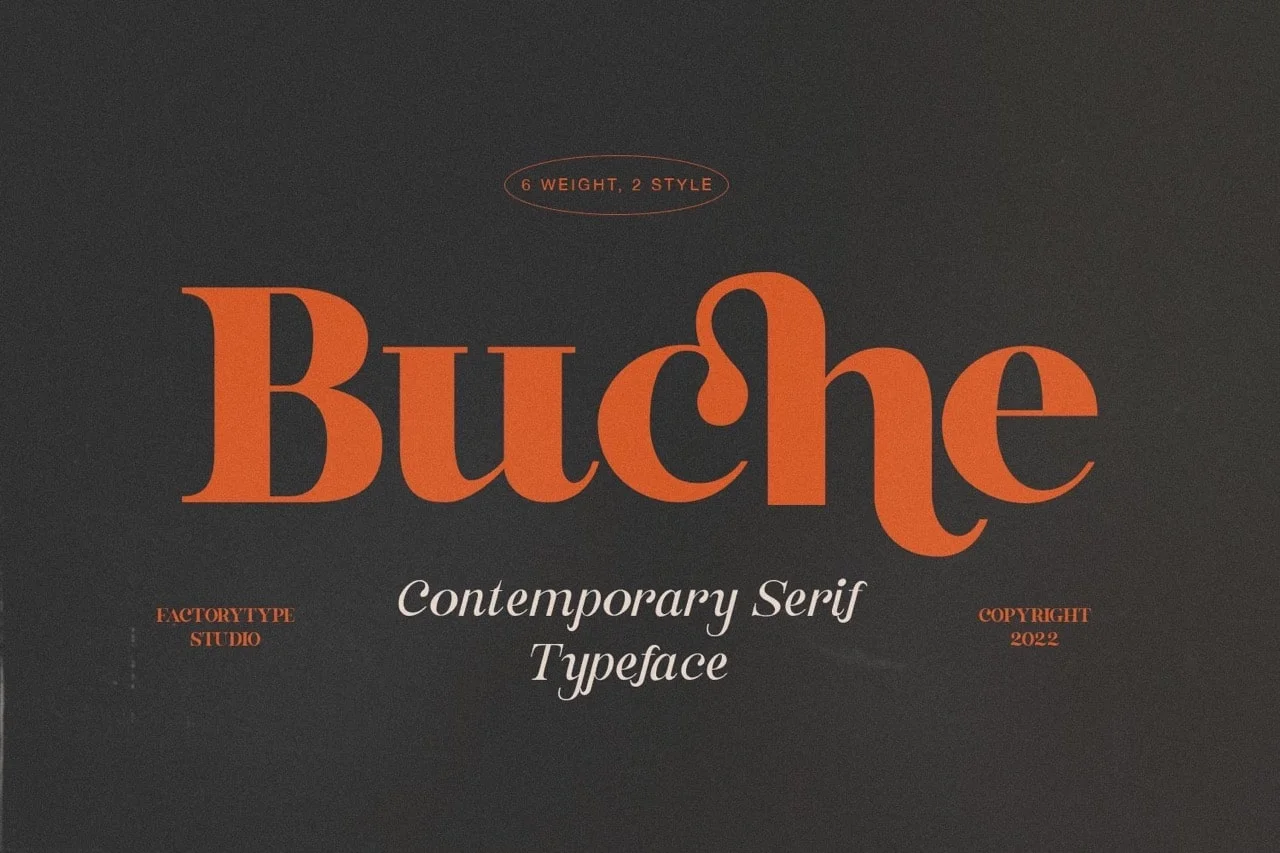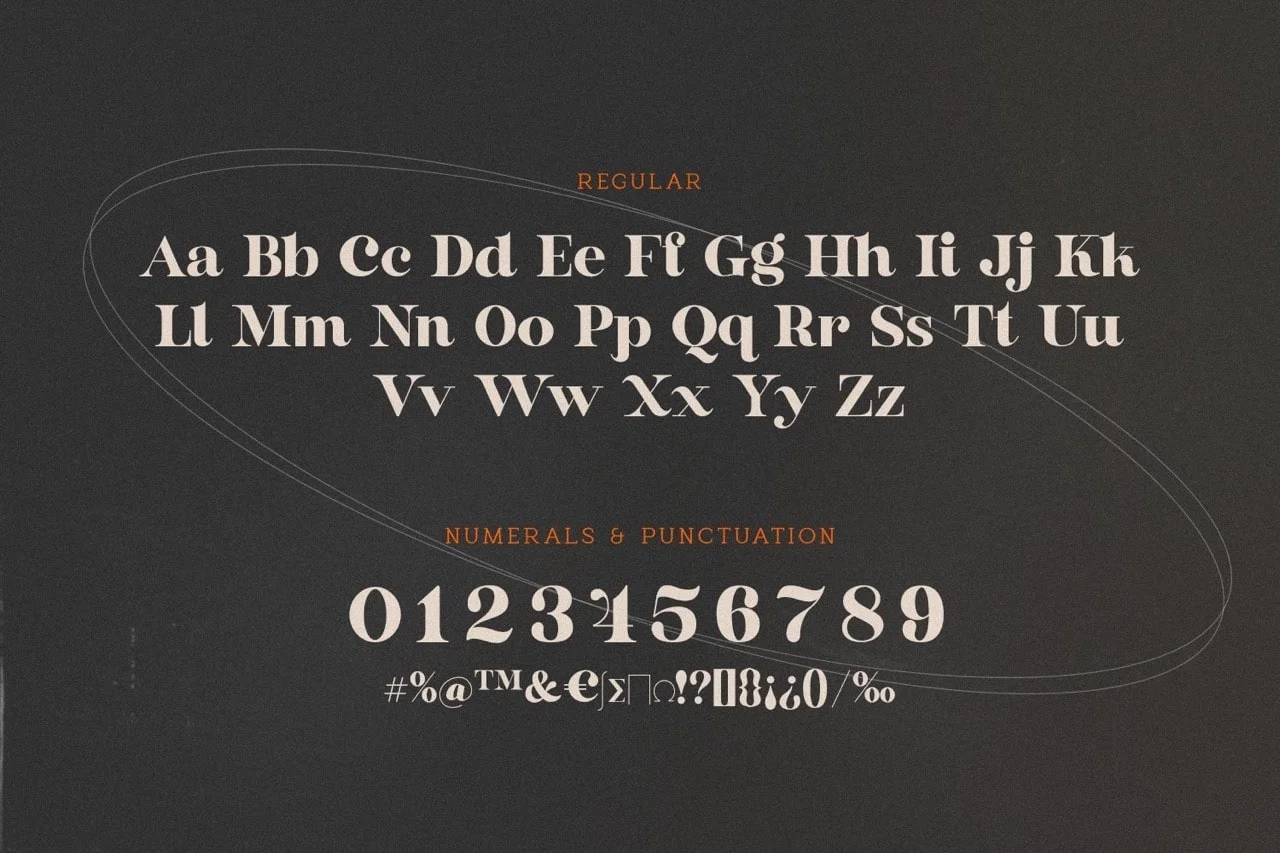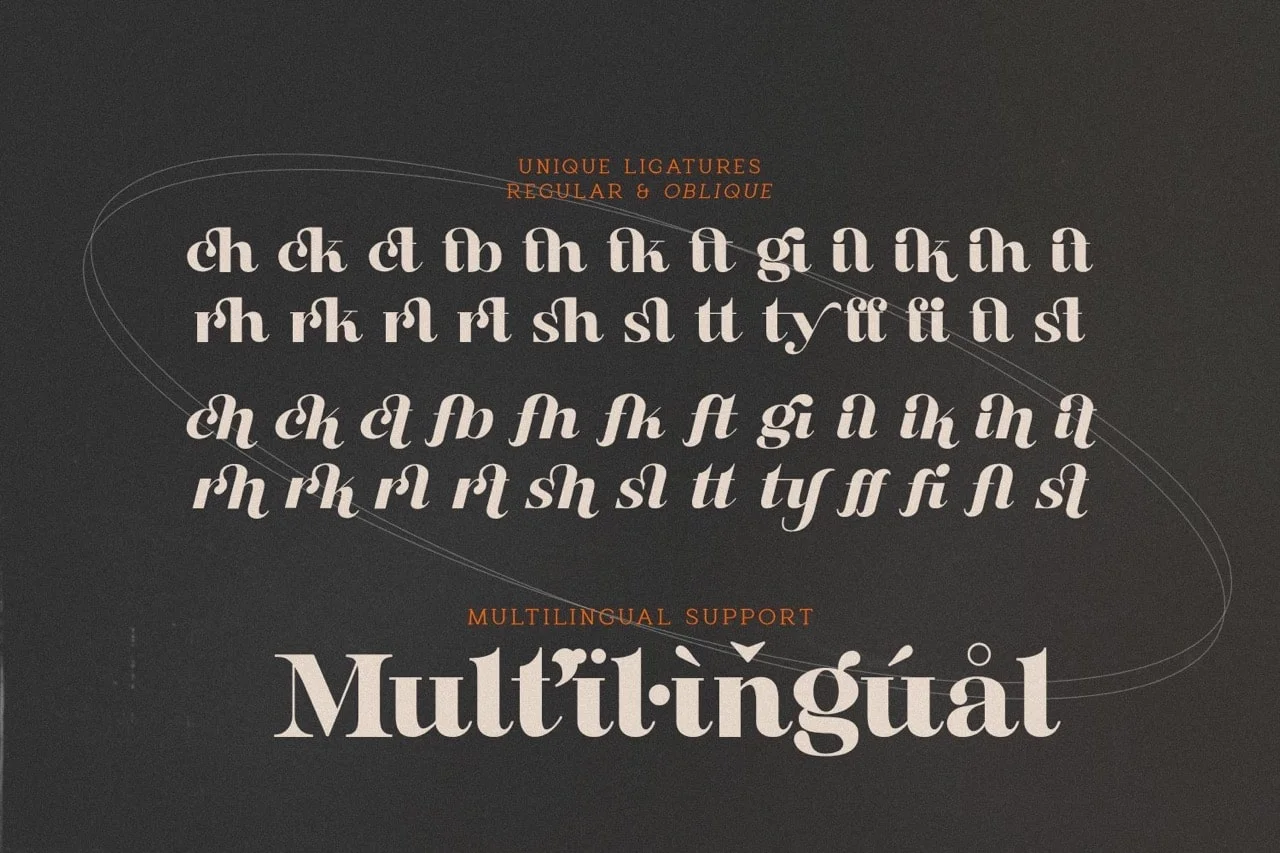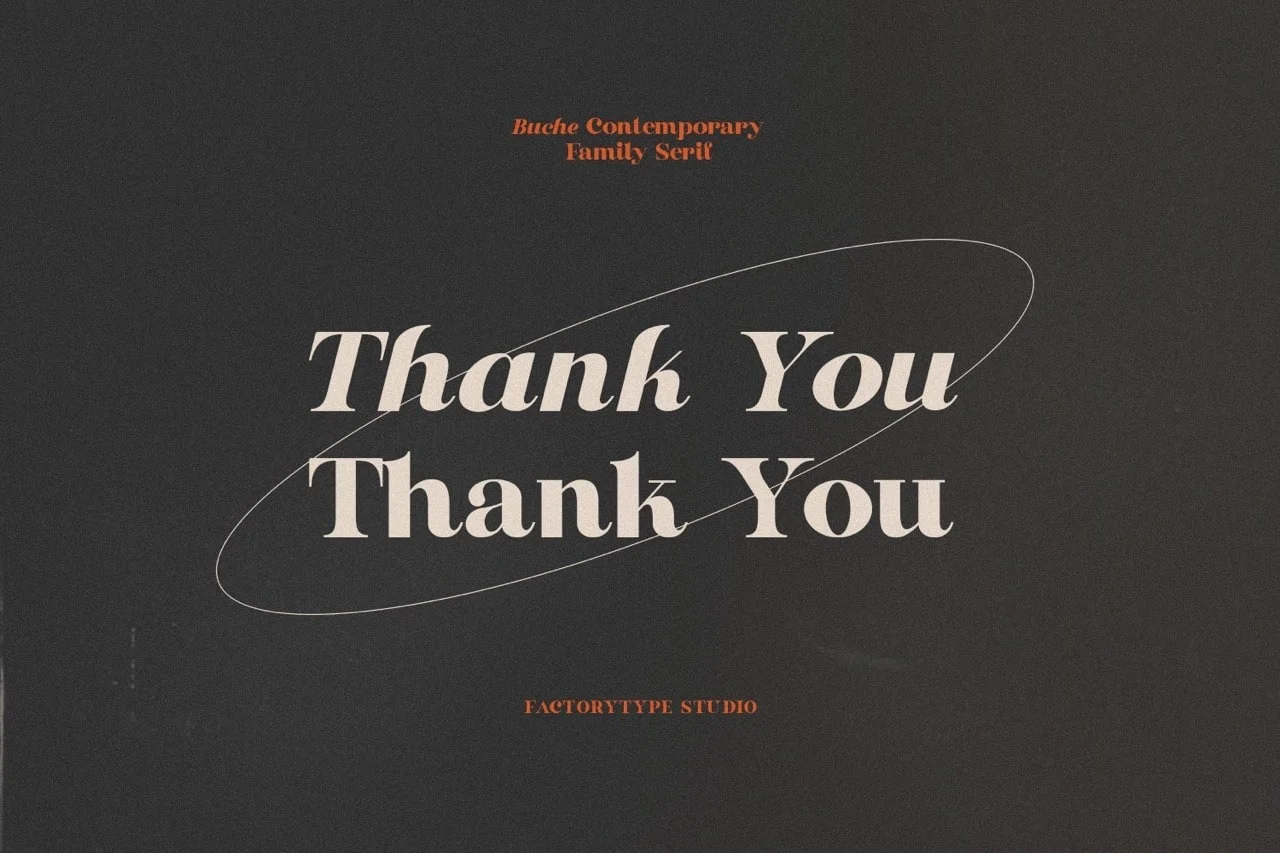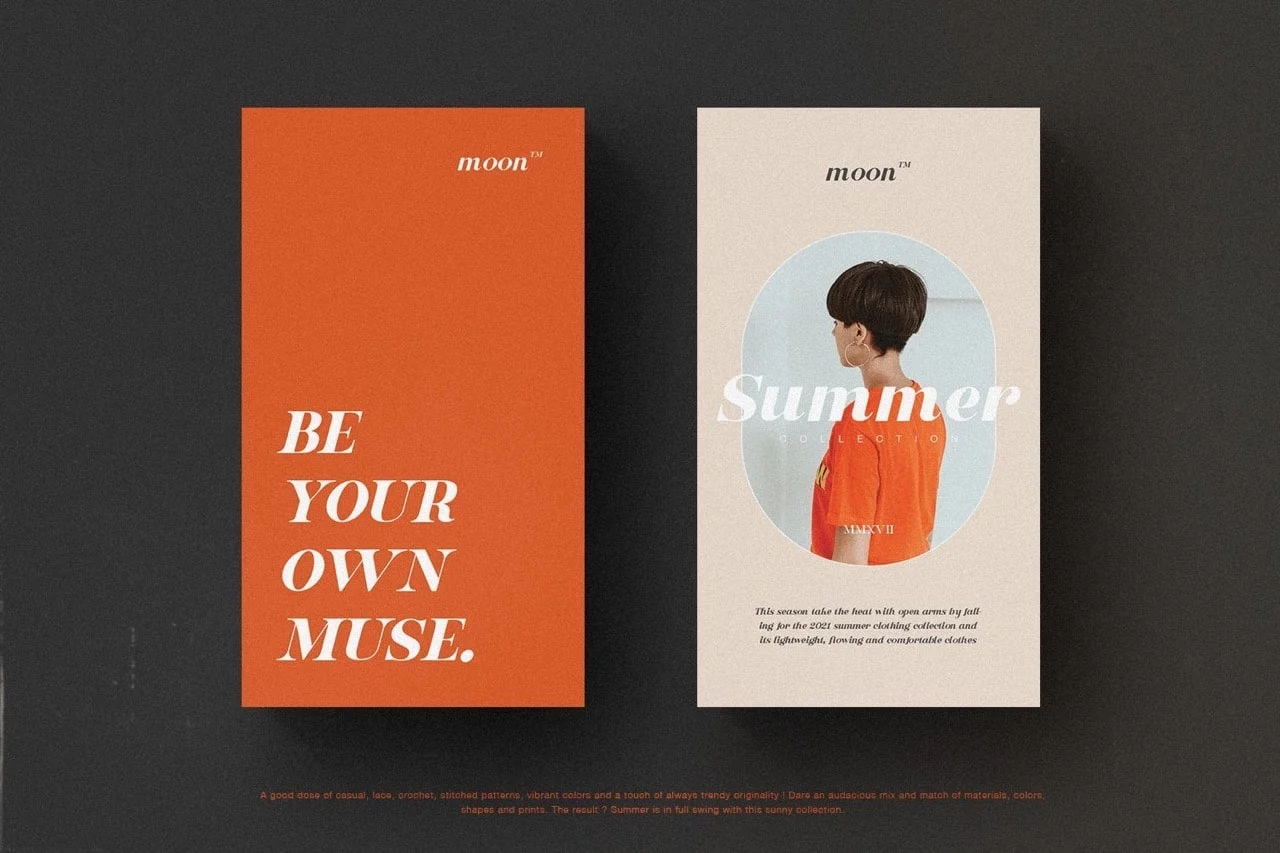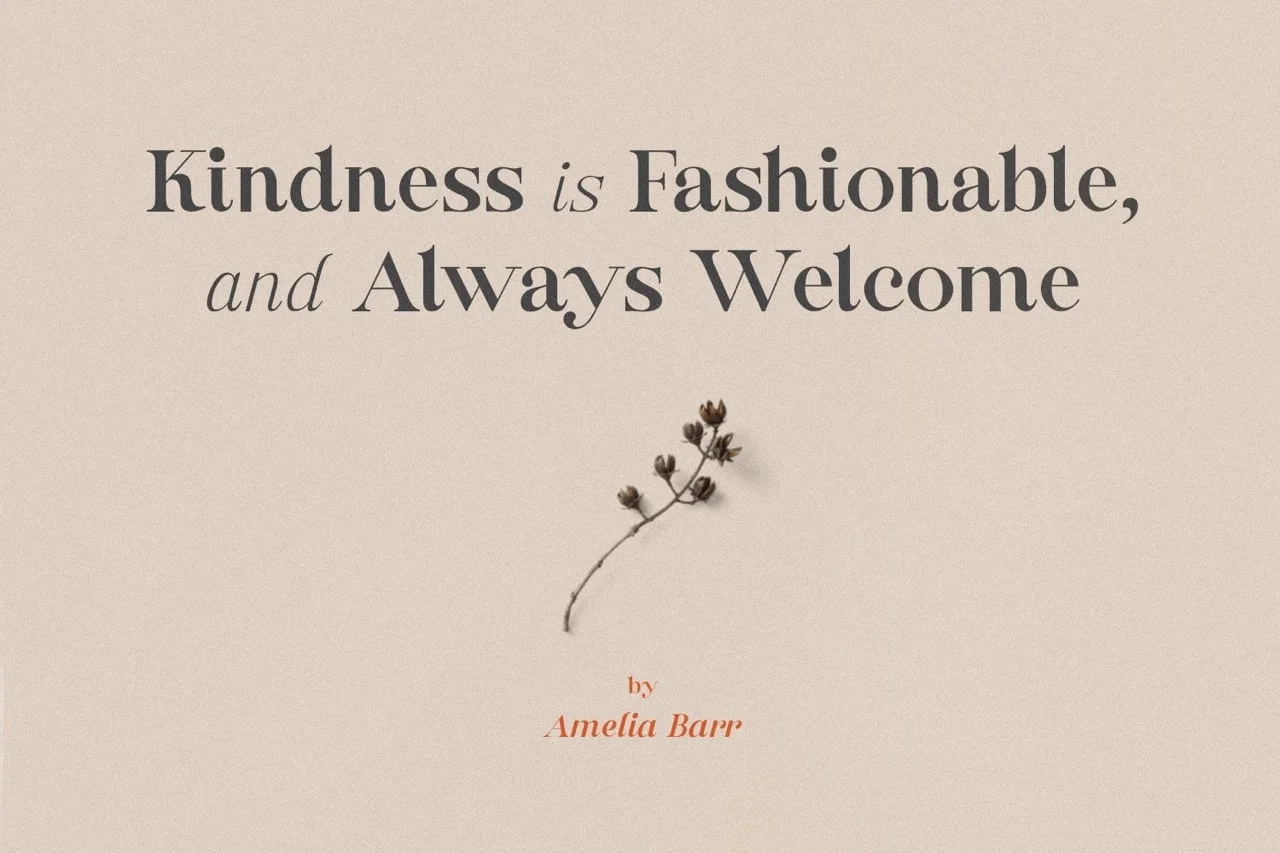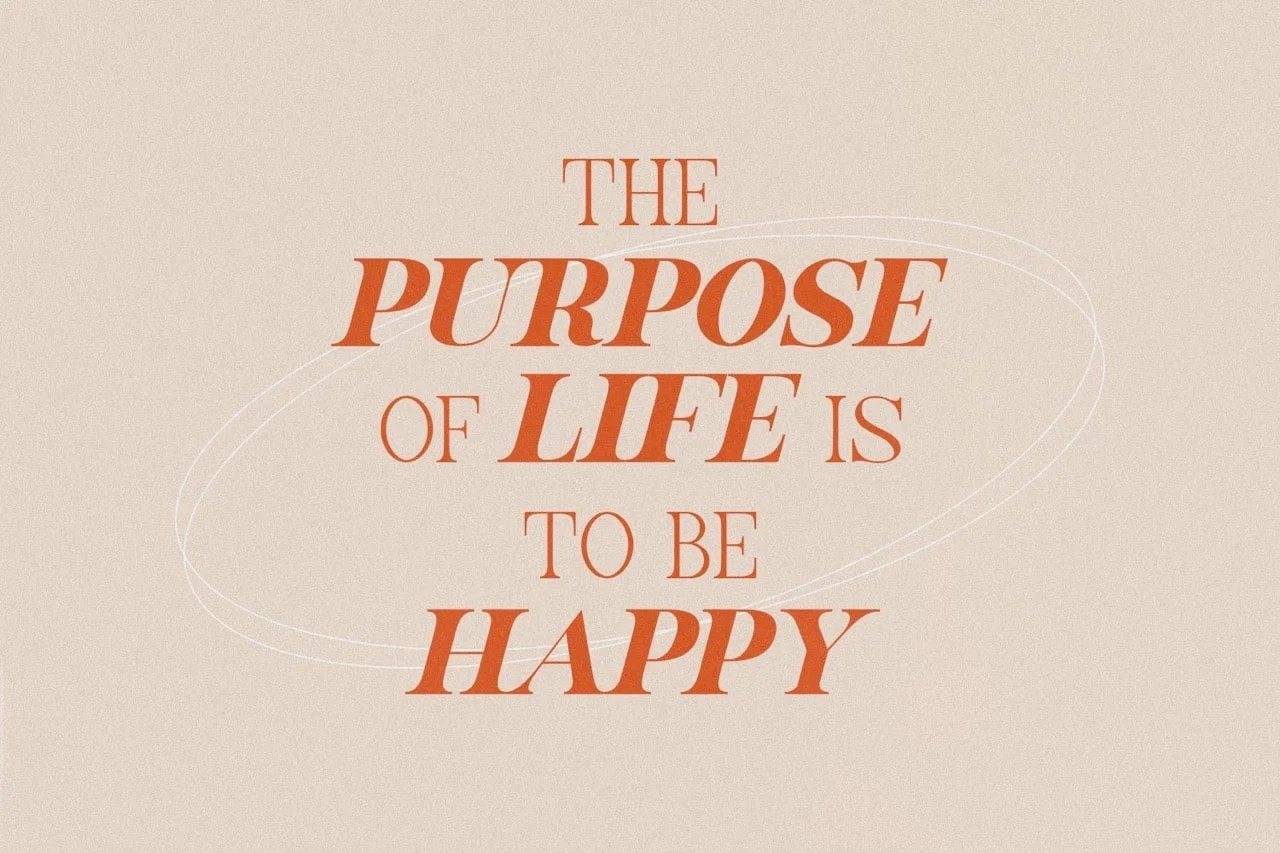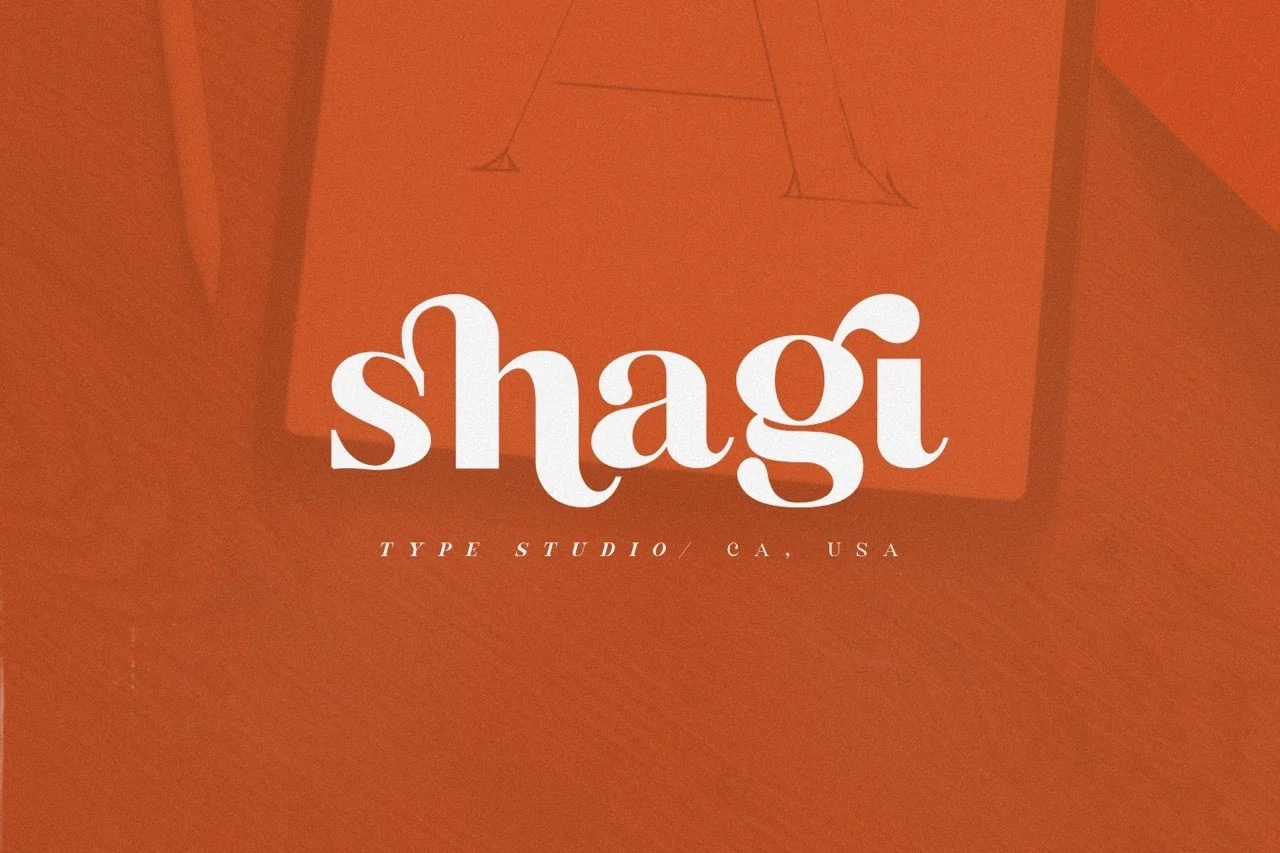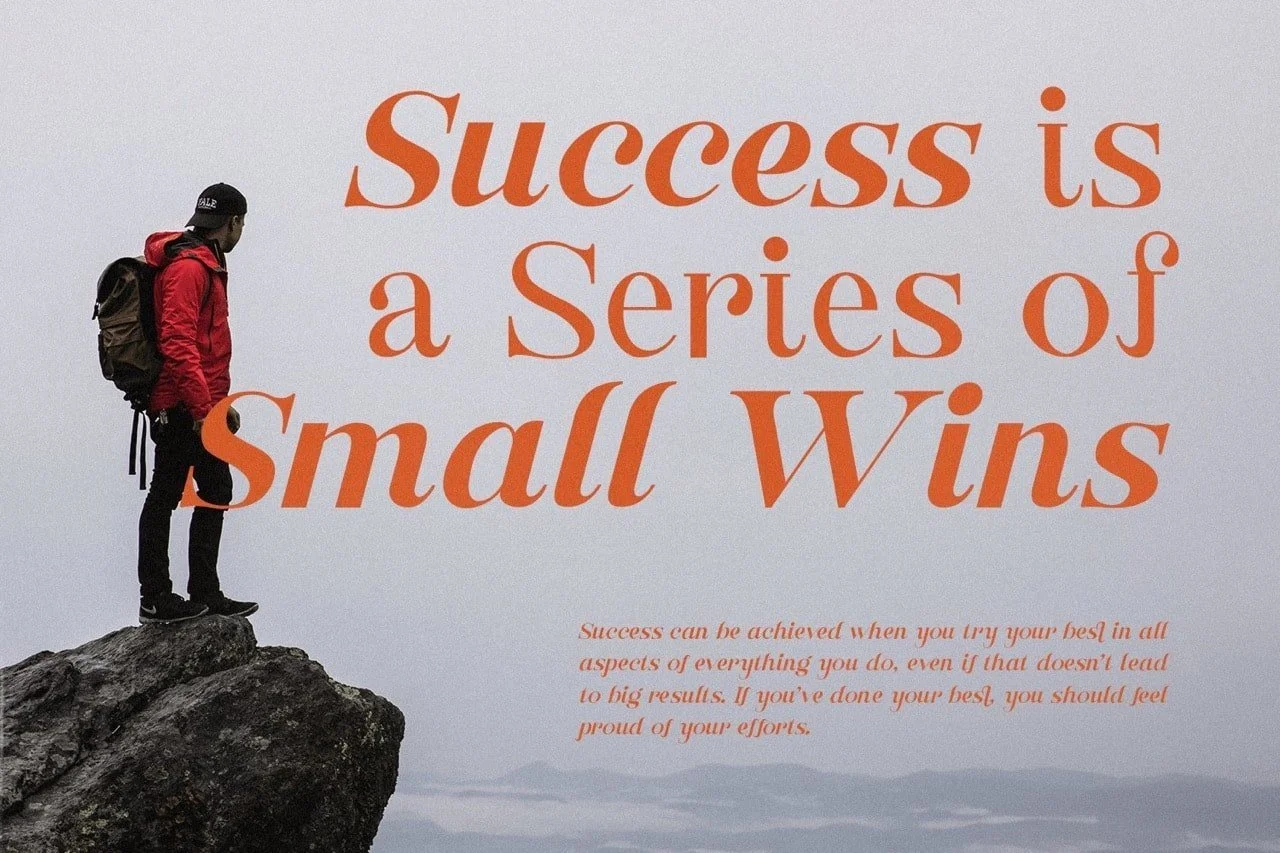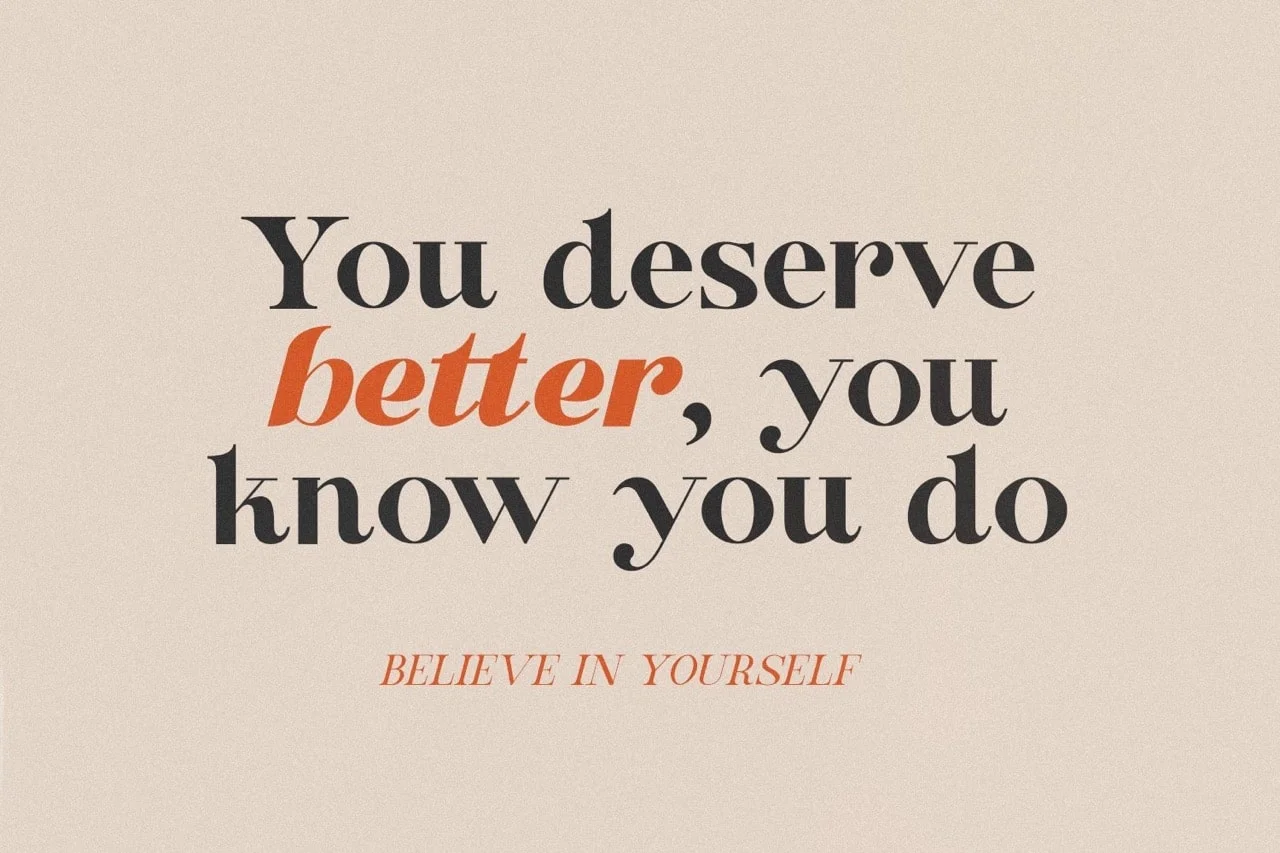
Buche is a contemporary serif font designed for logo and brand design, with a curvy look. The ligatures will come in handy for whatever your imagination can think up!
- 6 Weights
- 2 Styles (Regular and Italic)
- Basic Latin A-Z and a-z
- Numerals & Punctuation
- Stylistic Ligatures and Alternate Glyphs
- Multilingual Support for ä ö ü Ä Ö Ü …
Buche Serif